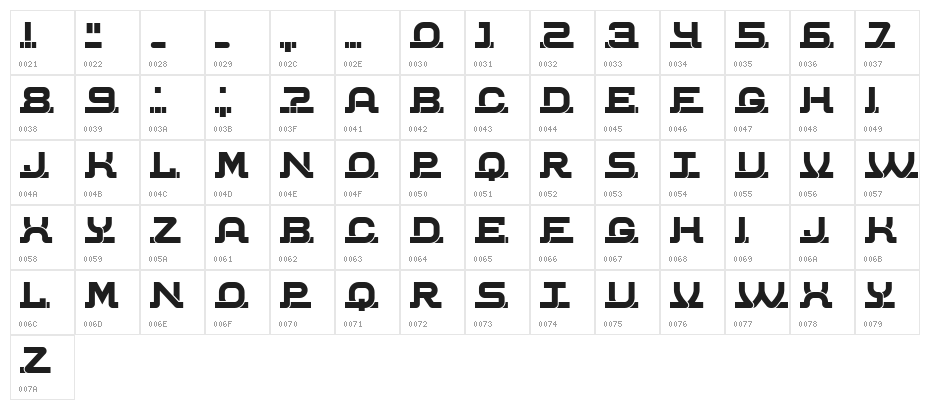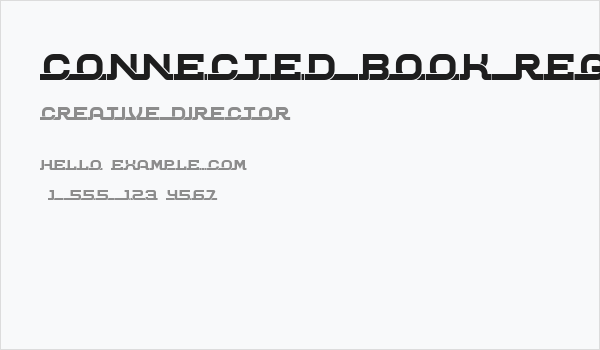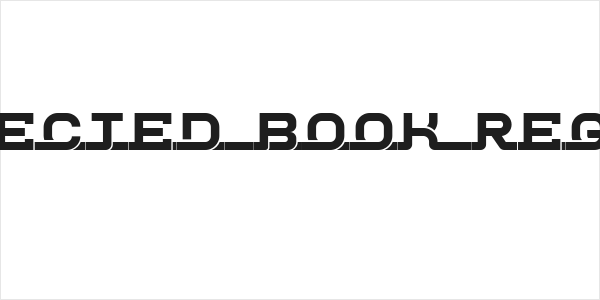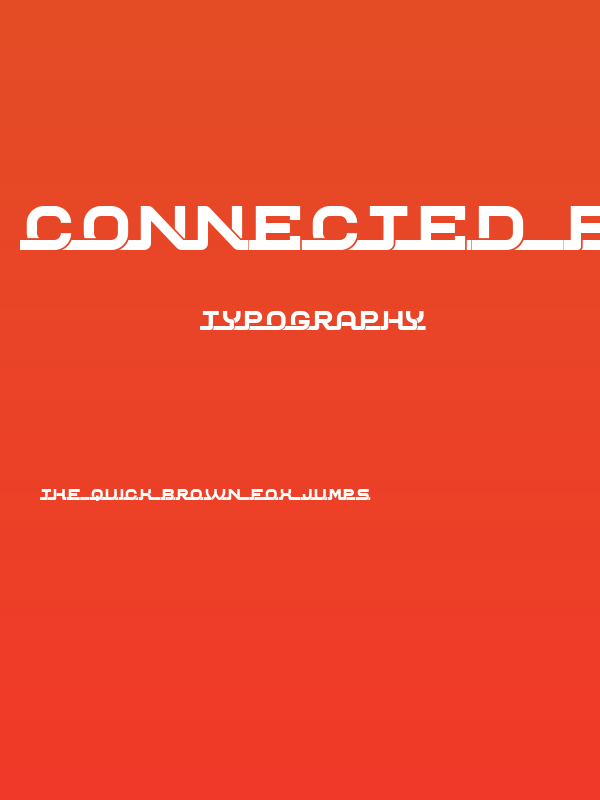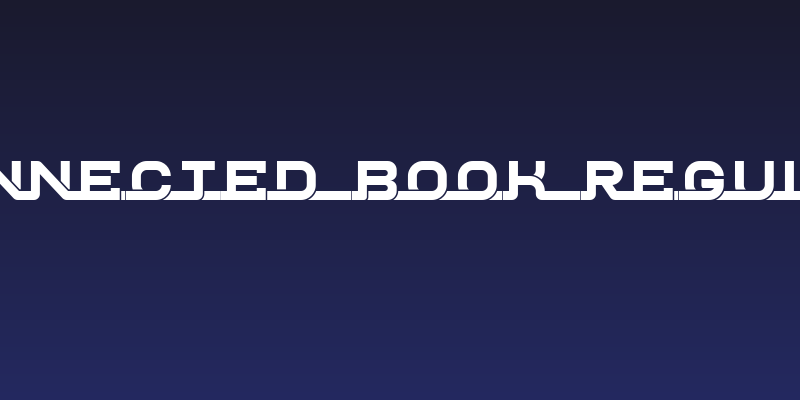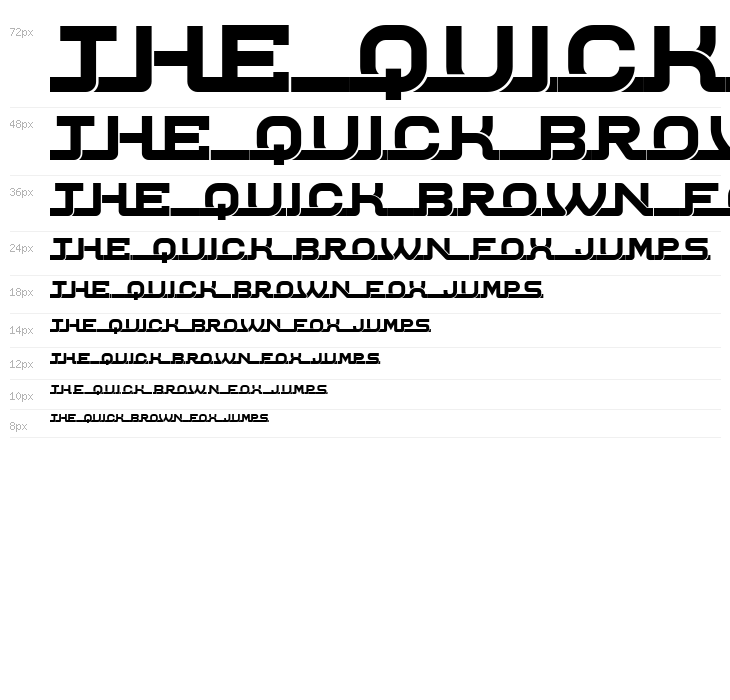
Connected Book Regular Font
Connected Book Regular Description
This font features a bold, geometric style with a futuristic and industrial feel. The characters are constructed with a combination of solid and outlined segments, creating a unique, connected appearance. The uppercase and lowercase letters maintain a consistent height, contributing to a uniform look. The numbers and special characters follow the same design principles, ensuring cohesion across all elements. The font's distinct style is characterized by its sharp angles and straight lines, making it stand out in any design project.
| Proposed Projects | Ideal for technology branding, sci-fi themed projects, modern posters, and innovative product packaging. |